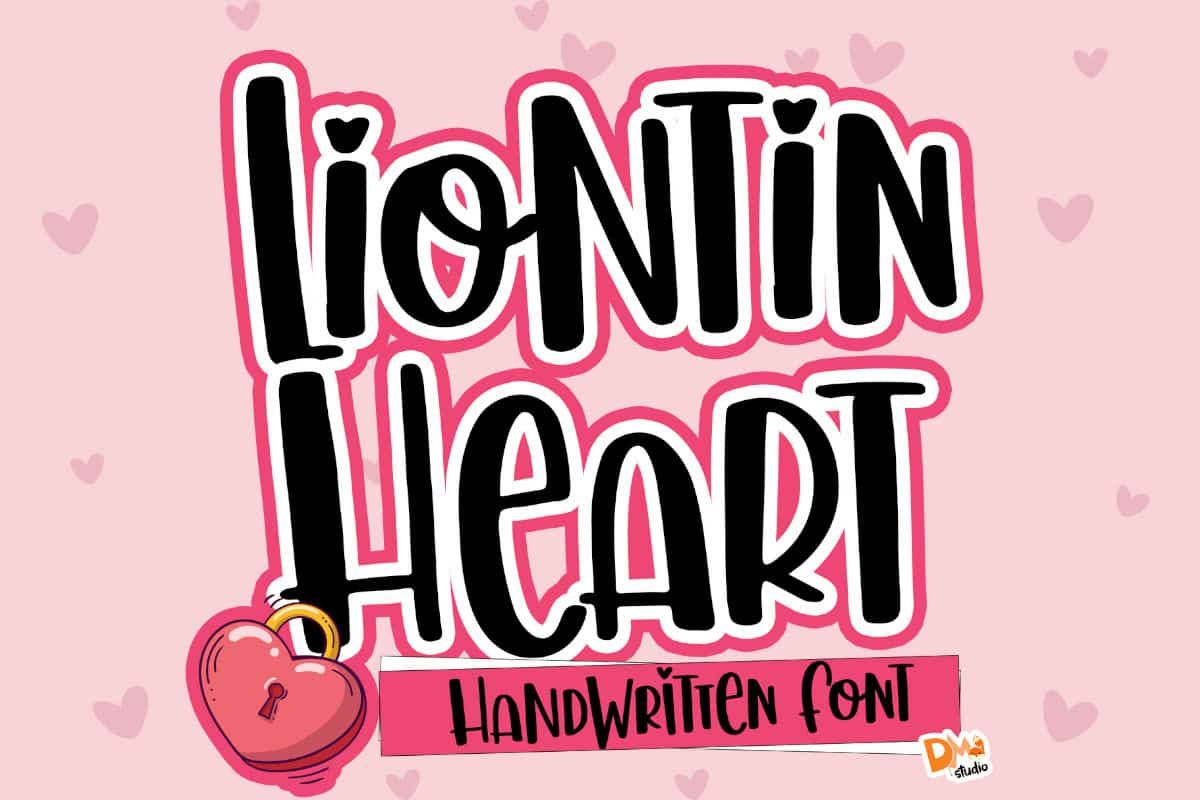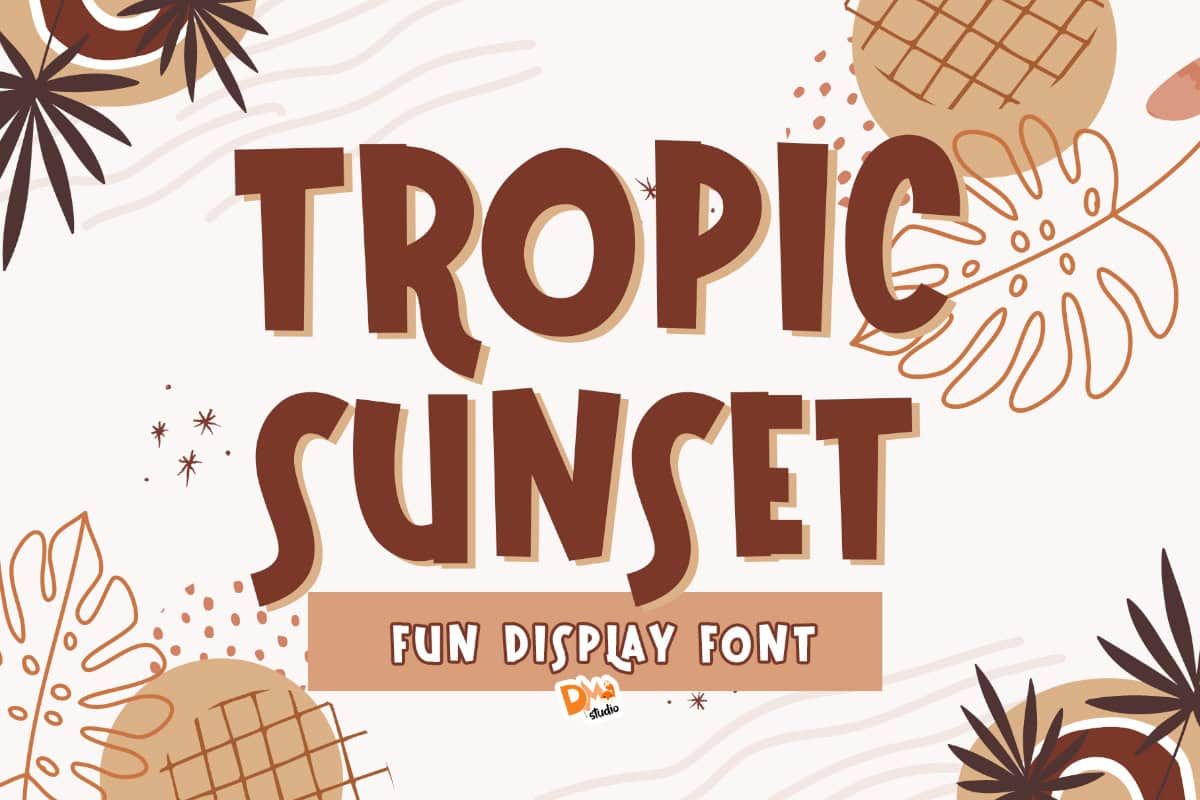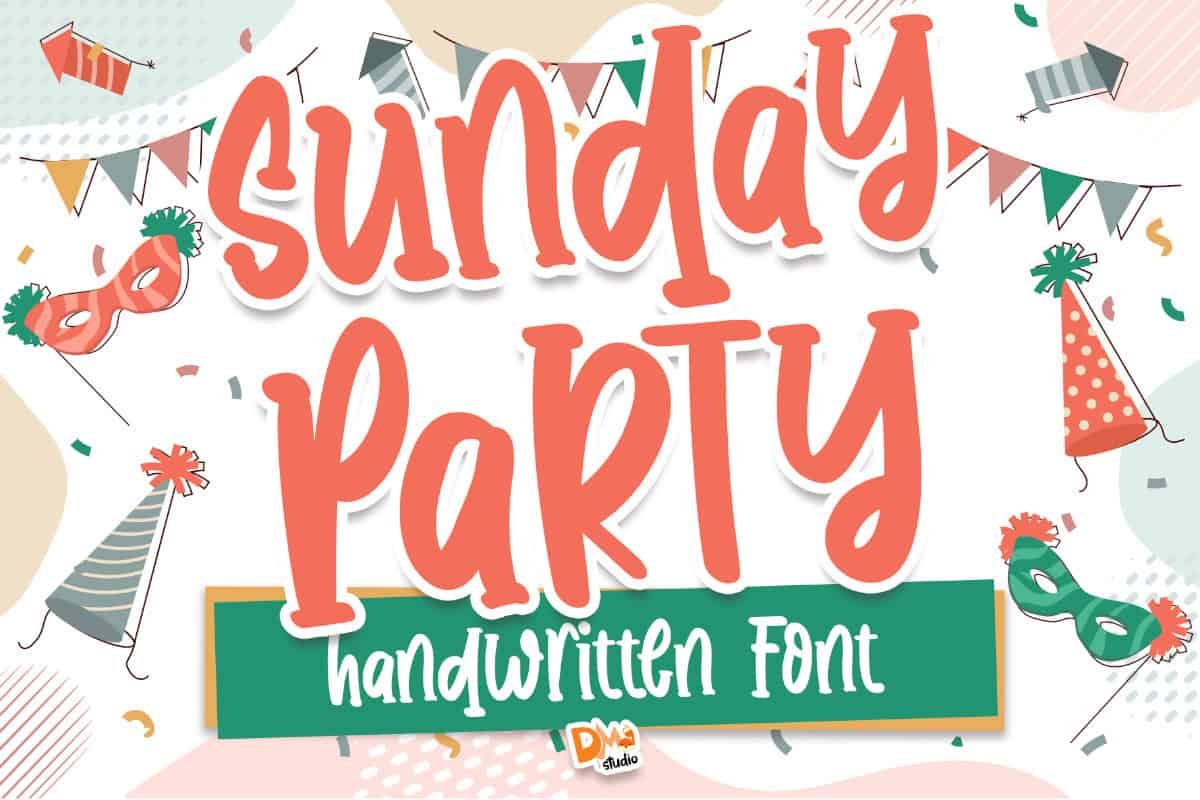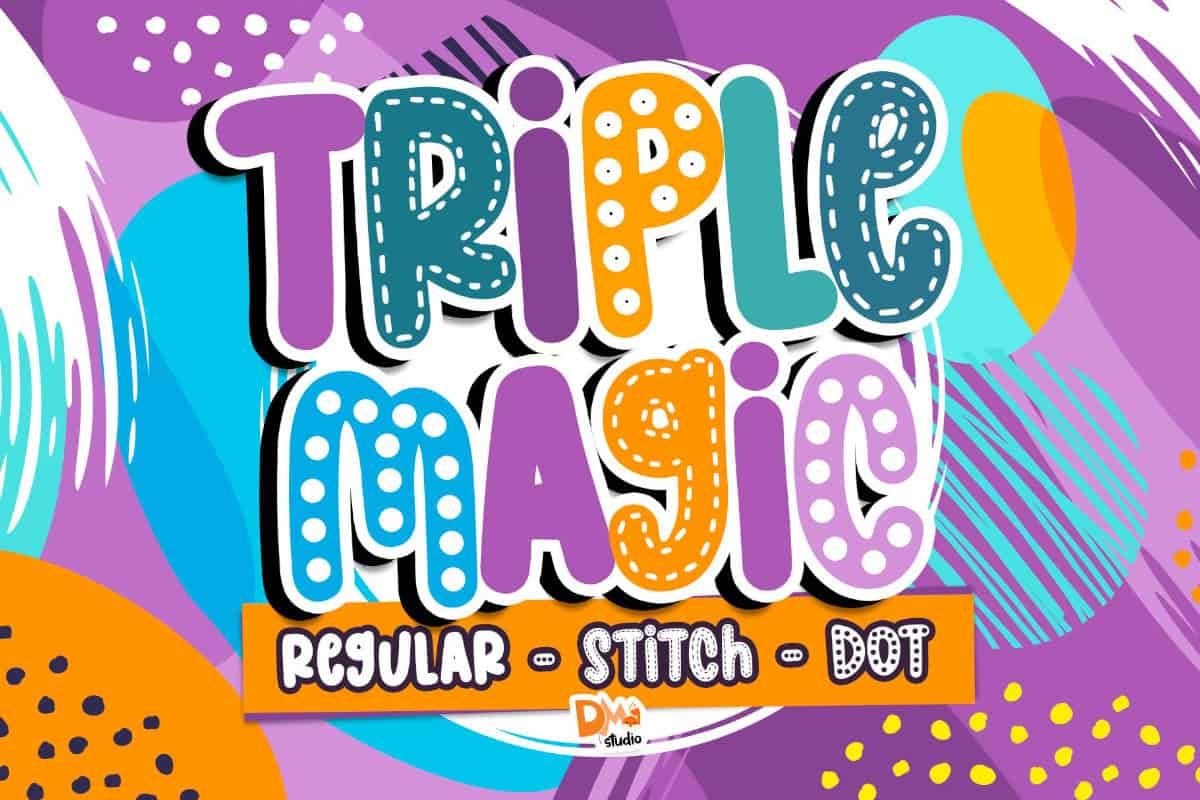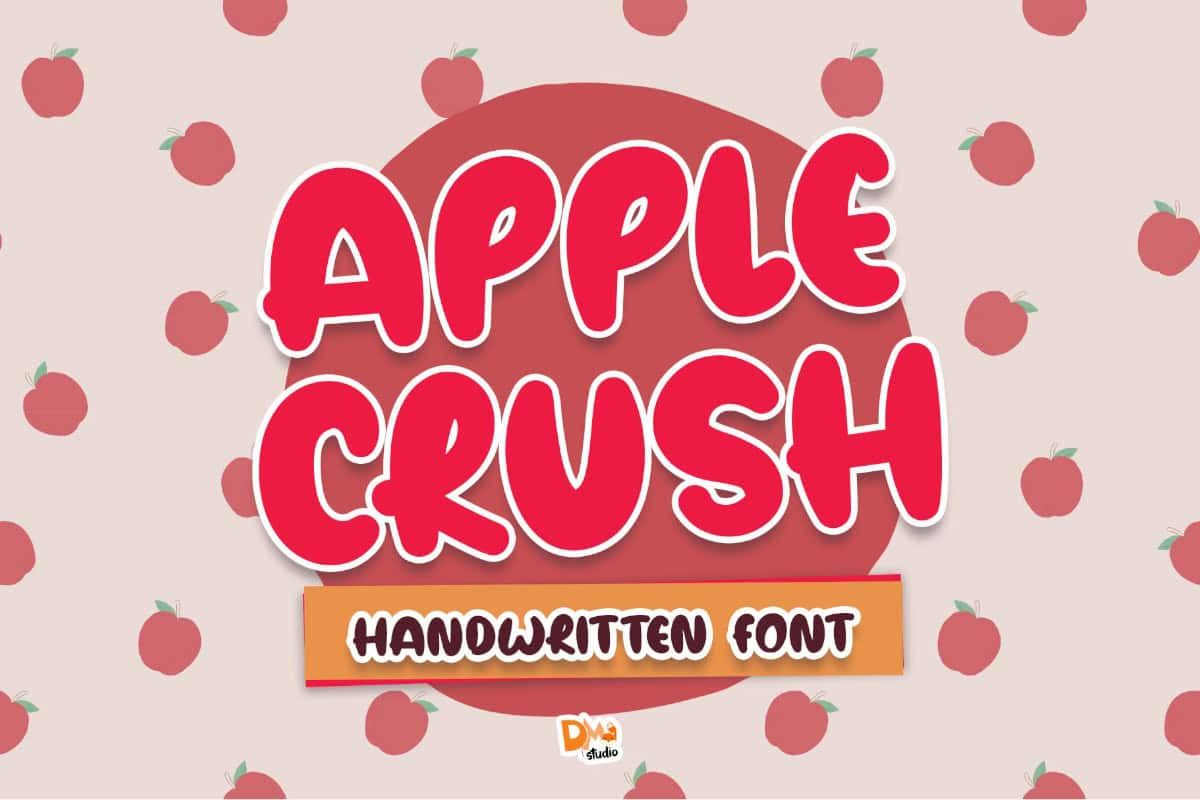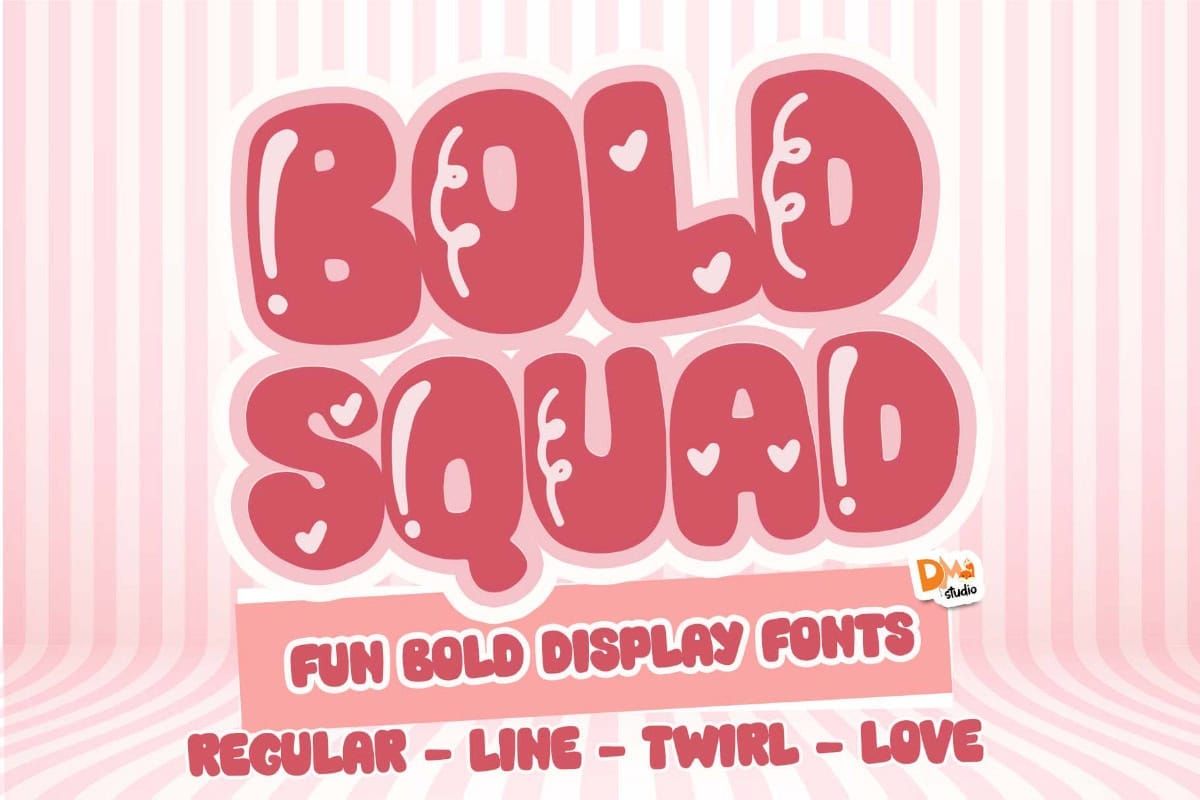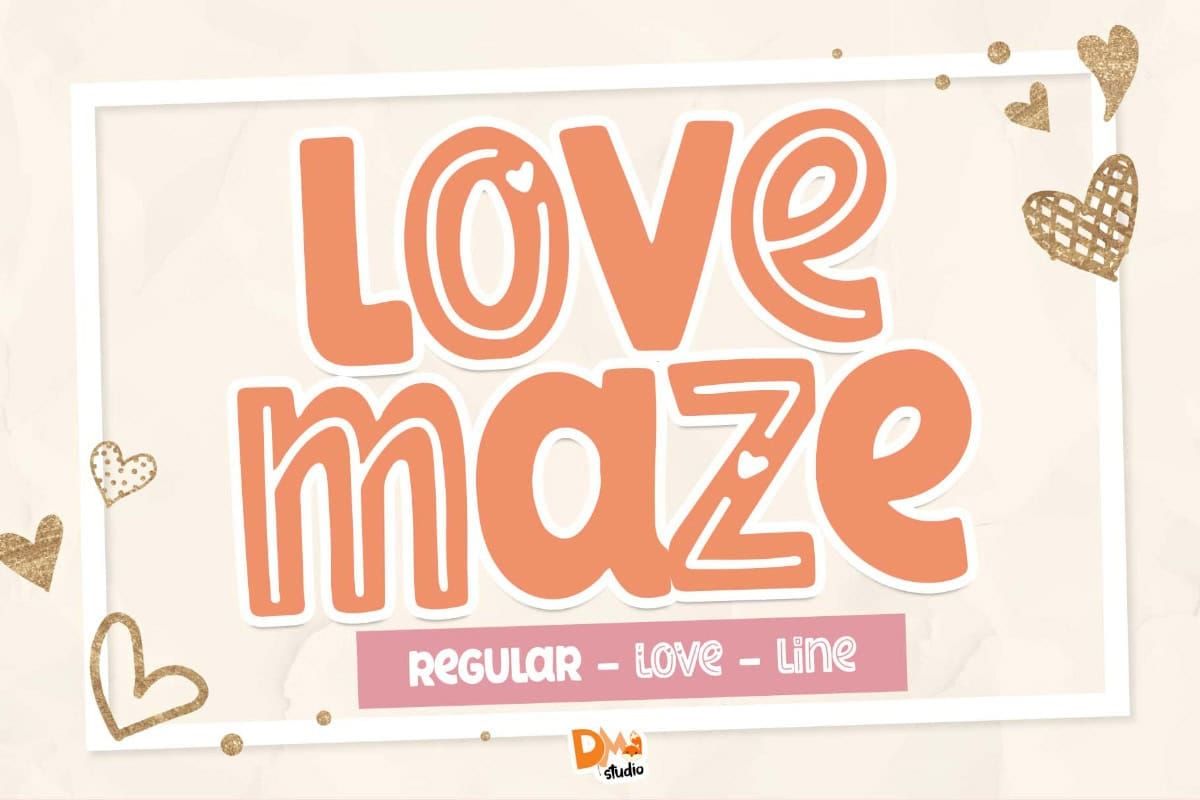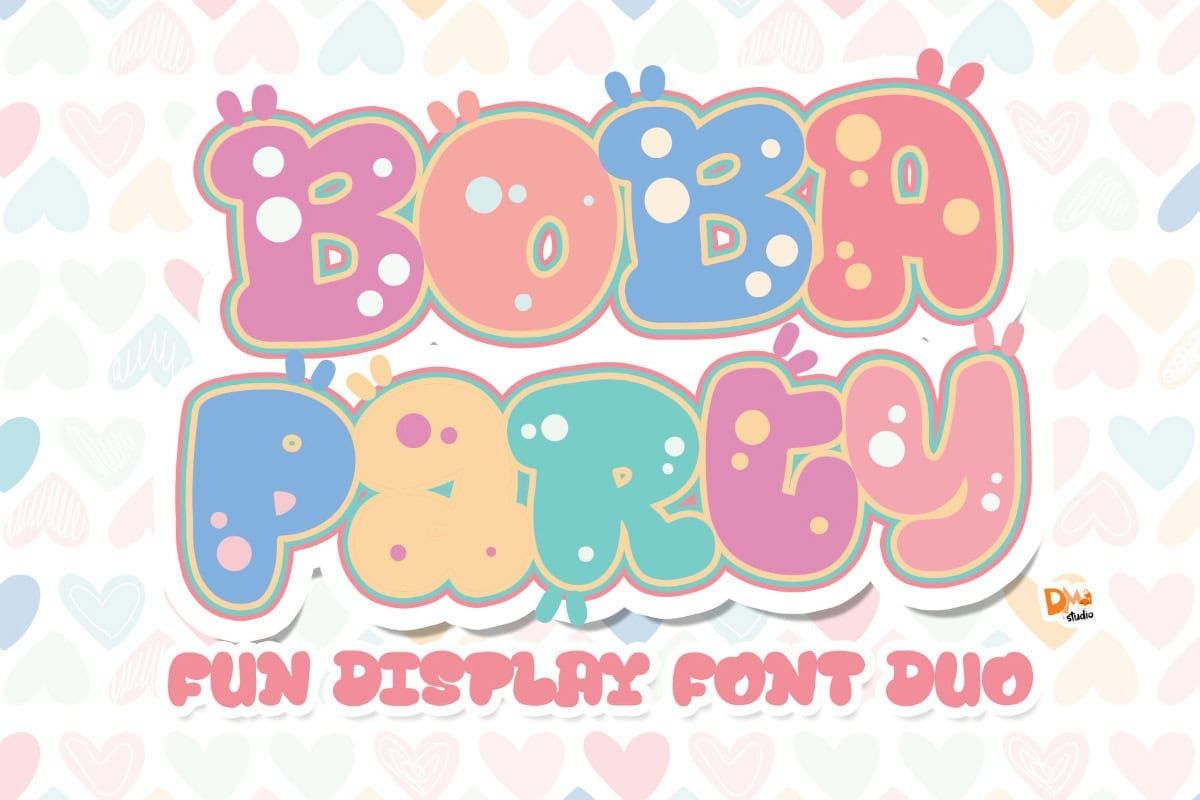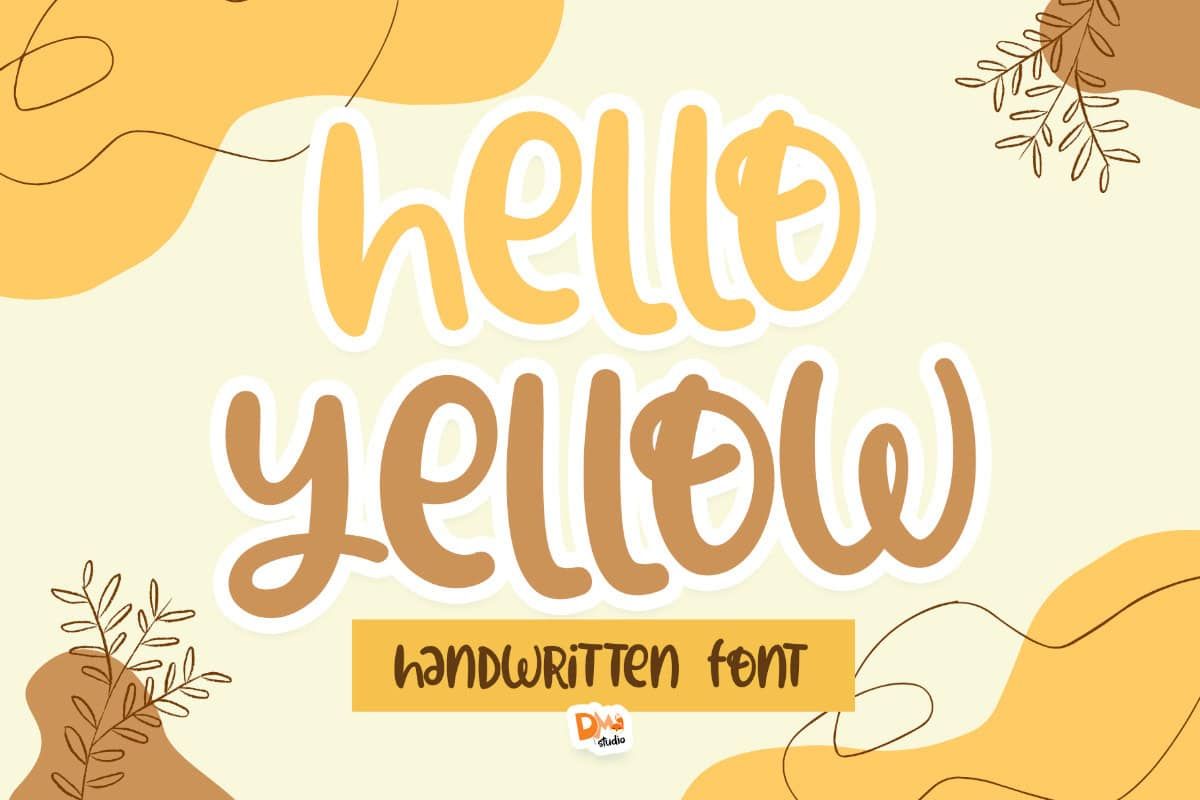
The Ultimate Guide to the Best T-Shirt Fonts for Designers
When it comes to fashion, your t-shirt design is only as strong as your font choice. Whether you’re launching a streetwear line, designing funny quotes for casual tees, or printing personalized family reunion shirts, choosing the best fonts for t-shirts is a critical step that can make or break your brand. In this guide, we’ll explore the best fonts for t-shirt printing including playful, bold, and attention-grabbing options plus provide expert tips and trending font pairings to bring your t-shirt ideas to life.
Why Choosing the Best Fonts for T-Shirt Design Matters
Typography isn’t just about legibility it’s about attitude, emotion, and impact. The best fonts for t-shirts reflect your message and set the tone for your entire design. Think of fonts as your voice on fabric. A bold sans serif may shout with confidence, while a whimsical script whispers charm.
Your audience wants something they can connect with and fonts like Liontin Heart, Bold Squad, and Sunday Party deliver exactly that. These fonts are visually exciting, scalable across sizes, and print beautifully on fabric.
Top 10 Best Fonts for T-Shirt Designs
Below are some top picks based on visual appeal, clarity, and style trends from the image you referenced:
1. Liontin Heart Font
• Type: Handwritten
• Style: Funky, bold outlines
• Best for: Youth apparel, humor quotes, kawaii fashion
• Pair With: Sweet Toffee or Love Rain for secondary text
This font is quirky and lovable perfect for standout messages.
2. Bold Squad Font
• Type: Display
• Style: Retro bubble
• Best for: Retro-themed or comic-style t-shirts
• Pair With: Beach Crush or Playlist Font
Its girthy shapes print well even on dark or patterned shirts.
3. Sunday Party Font
• Type: Handwritten
• Style: Doodle + handwritten mix
• Best for: Events, party shirts, or summer brands
• Pair With: Aloha Lover for headlines and Garden Flower for details
4. Triple Magic Font
• Type: Display
• Style: Colorful cartoon style
• Best for: Kids clothing, comic merch
• Pair With: Hello Yellow or Skyhigh Font
5. Hello Yellow Font
• Type: Handwritten
• Style: Chunky fun
• Best for: Daily wear and sunny personality themes
• Pair With: Love Maze or Warm Winter for text hierarchy
6. Boba Party Font
• Type: Display
• Style: Cute bubble letter font duo
• Best for: Café merchandise, quirky slogans
• Pair With: Sweet Toffee
7. Love Maze Font
• Type: Display
• Style: Rounded, romantic
• Best for: Valentine’s tees, couples apparel
• Pair With: Peach Sunset
8. Apple Crush Font
• Type: Handwritten
• Style: Bold marker
• Best for: Streetwear brands
• Pair With: Bubble Dance
9. Tropic Sunset Font
• Type: Display
• Style: Bold all-caps
• Best for: Travel or beachwear themes
• Pair With: Matcha Latte
10. Playlist Font
• Type: Handwritten
• Style: Chill & casual
• Best for: Music brands, band tees
• Pair With: Block Note or Skyhigh
How to Choose the Good T-Shirt Fonts for Your Niche
Understand Your Audience
If your target buyers are young and fun, go for playful fonts like Liontin Heart or Bold Squad. Selling to travel lovers? Tropic Sunset might suit your purpose. Need something edgy? Consider mixing Sunday Party with Triple Magic.
Match Font with Shirt Color
High contrast = high impact. Use white or neon fonts like Boba Party on dark tees or pair Sweet Toffee with pastel shades. Always preview your design in mockup tools before printing.
Focus on Readability
The best shirt font doesn’t just look cute—it must be readable from a distance. For example, Hello Yellow and Bold Squad have thick, solid strokes that won’t fade in wash or lose legibility.
Use Pairing for Emphasis
Combine fonts with different weights or styles to create emphasis. Example: Use Liontin Heart for the main quote, then Skyhigh for subtext or hashtags.
Best Fonts for T-Shirt Design Printing: Technical Considerations
Vector Format Is a Must
Ensure your font files are available in OTF, TTF, or WOFF formats and are vector-based so they can scale without distortion.
Fabric and Ink Compatibility
Fonts like Bubble Dance and Dream Shore have shapes that print well with both DTG and screen printing processes.
Try Font Duos
Some fonts like Bubble Leaf and Love Rain already come in font duos, simplifying your design process.
Most Common Use Cases for T-Shirt Fonts
1. Funny Sayings Tees : Use Bold Squad or Liontin Heart
2. Couple Shirts : Try Love Maze + Dear Shine
3. Kidswear : Go with Triple Magic or Boba Party
4. Summer/Beach Wear : Use Tropic Sunset + Beach Crush
5. Event Merchandise : Use Sunday Party + Love Rain
Pro Tips to Maximize Your T-Shirt Fonts Design